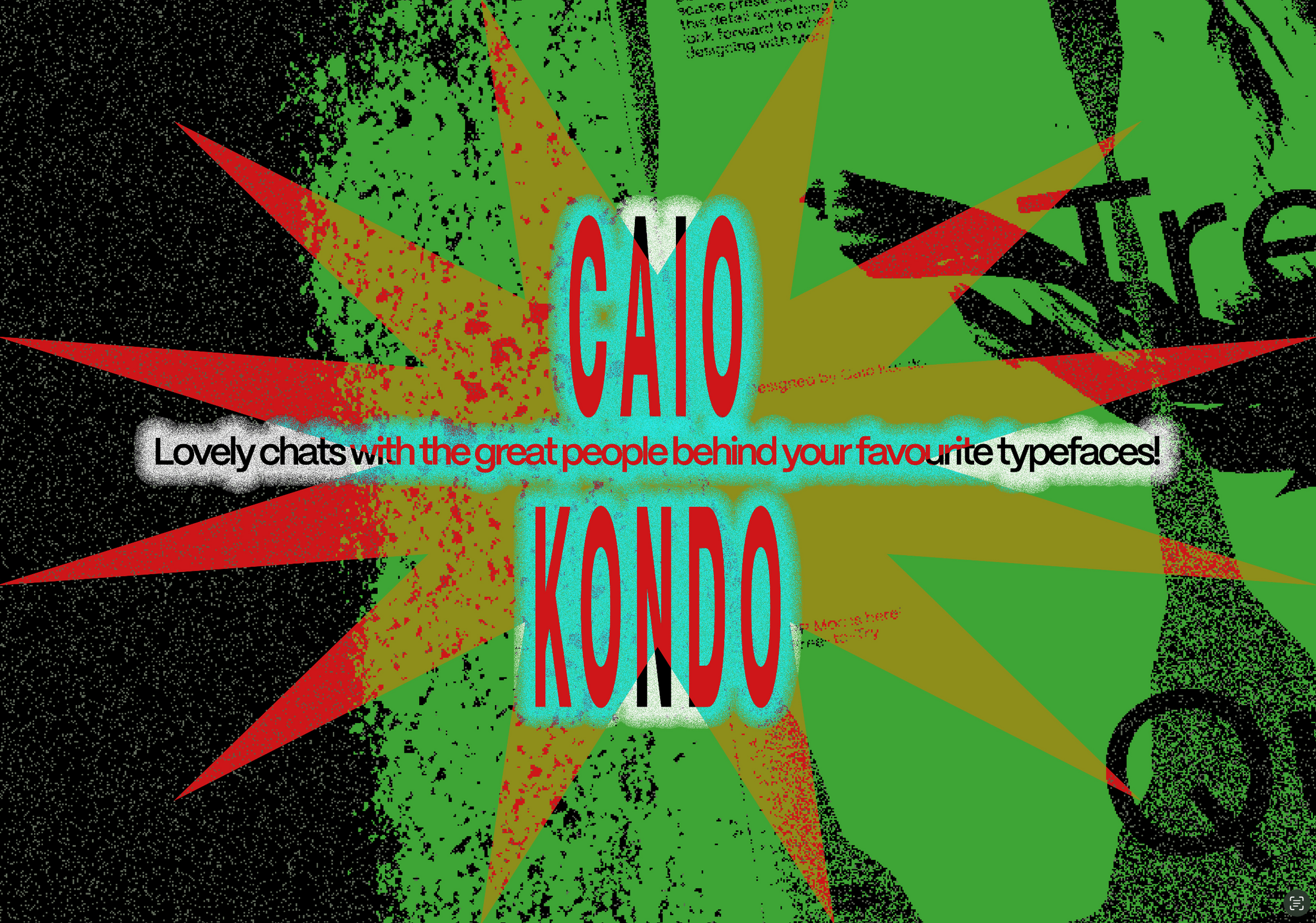
In the world of type design, there are creators who infuse their work with cultural richness and artistic depth. One such luminary is Caio Kondo, a Brazilian-Japanese type designer hailing from São Paulo. His journey in typography has been a captivating one, marked by a fusion of his dual heritage and a relentless pursuit of excellence in design. Not to mention the fact that, along this fascinating journey, he’s creating some truly amazing (and, let’s be honest, really cool) fonts.
In the first of our Meet The Team series, we’ve sat down with Caio Kondo, the mastermind behind the highly acclaimed typefaces Eiko and Mori – and most recently, Air, an acutely balanced concoction of minimal, brutal and Aerospaced-inspired forms – to delve into the creative mind that has left an indelible mark on the typographic landscape. Caio’s story is one of self-taught dedication, evolving from a graphic design graduate to the founder of Inari Type Foundry in 2020. His foray into the world of typefaces was not without challenges, but his passion and perseverance have yielded fonts that resonate with sophistication and cultural significance.
A testament to the boundless possibilities of type design, with a practice continuing to shape the way we perceive and interact with typography, join us as we uncover the artist behind the fonts, learn about his daily rituals at the desk, and gain insight into his creative philosophy.
Introduce yourself! Who are you, and what do you do?
CAIO: Hello! My name is Caio Kondo, I'm a Brazilian-Japanese type designer based in São Paulo, Brazil.
What does a typical working day look like?
CAIO: When I’m not immersed in kerning, my days are generally quite pleasant, haha. Jokes aside, I must confess that my typical workdays aren’t particularly glamorous; they often entail long hours in front of the computer.
What can’t you live/work without at your desk space (other than a phone or computer)?
CAIO: I couldn’t imagine a productive day without my printers. Despite having 4K monitors, I’m still a fan of print testing. I have both a laser printer and an inkjet printer.
How did you get started in type design, and what advice would you give to those wanting to get started?
CAIO: I embarked on my journey in type design as a self-taught enthusiast following my graduation in graphic design. After working as a graphic designer for several years and concurrently designing my own fonts, I founded Inari Type foundry, in 2020.
For those who might not have the opportunity to enrol in a formal type design program, I would recommend online resources. There is a wealth of free information available. That includes exploring open-source fonts that can help you grasp the workings of a typographic system. Additionally, during my studies I received valuable guidance from experienced guys, so don’t hesitate to seek help.
What’s your favourite PP that you didn’t design?
CAIO: Editorial New is lit!!
Where does your creative inspiration or design philosophy come from?
CAIO: Determining the origins of my creative inspiration and design philosophy is a challenging task. Thanks to my Japanese heritage, I’ve absorbed numerous influences from Asian design, both in typography and culture. However, as of late, I’ve been directing my attention toward Latin America.
What creative books are a must?
CAIO: Without a doubt, ‘The Elements of Typographic Style’ and ‘How to Create Typefaces: From Sketch to Screen’ are essential reads, in my opinion. I would also like to mention the documentary ‘Hanzi’ (2017), which provided valuable insights into Asian typographic culture.
What do you enjoy most about your job, and what is the biggest challenge?
CAIO: The most enjoyable part of my job is drawing type; I have a deep passion for what I do. However, this can be arduous; sometimes a typographic project can last several years and launching it can be a daunting task when you’re not totally confident.
Finally, let's spread the type love! Quite simply, what’s your favourite typeface?
CAIO: Currently, my favourite font is Hanae, a creation by Ayaka and Flavia Zimbardi!